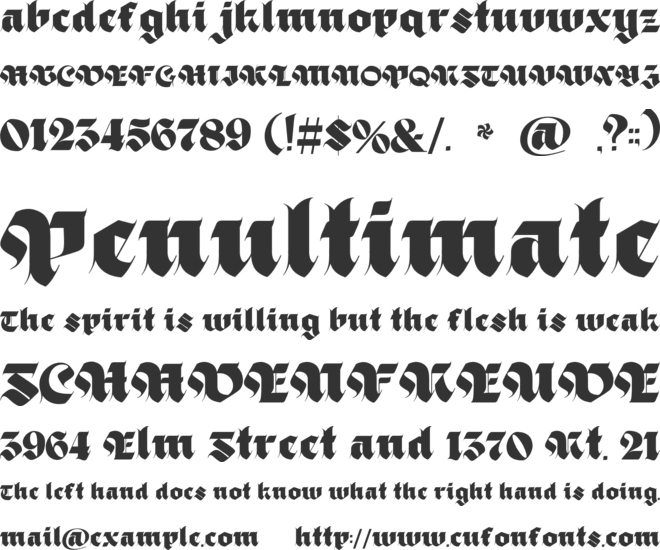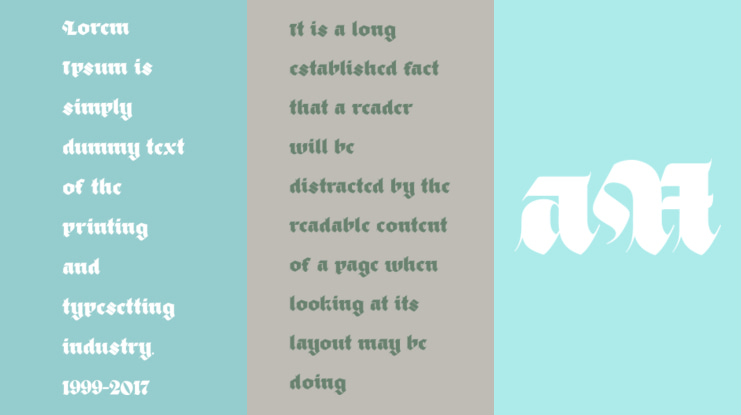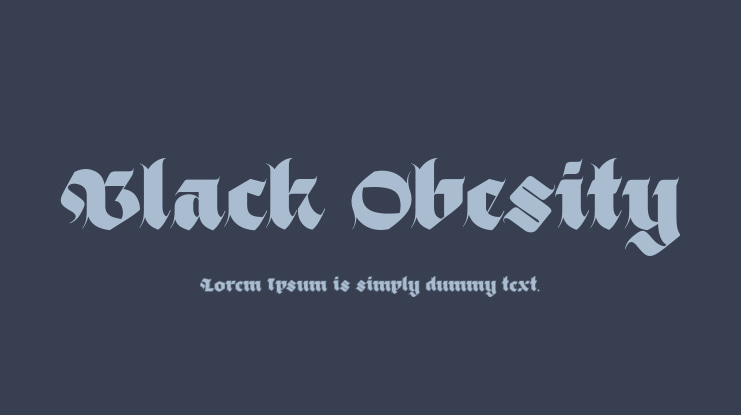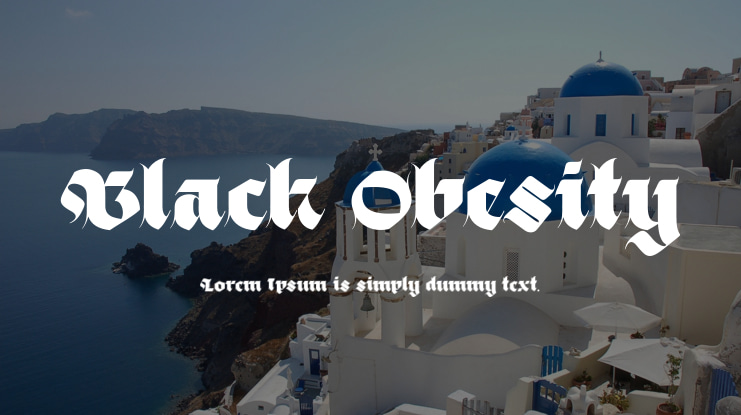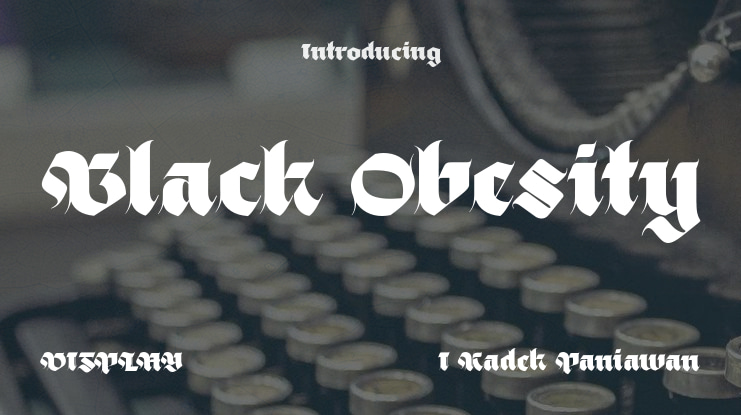
Black Obesity Font
I Kadek Paniawan
Explore the epitome of boldness and grandeur in typography with Black Obesity! This font exudes strength with its heavy fat Blackletter style and commands attention with every stroke. Please note that this font demo is for personal use only and not permitted for commercial use. Donations are greatly appreciated.